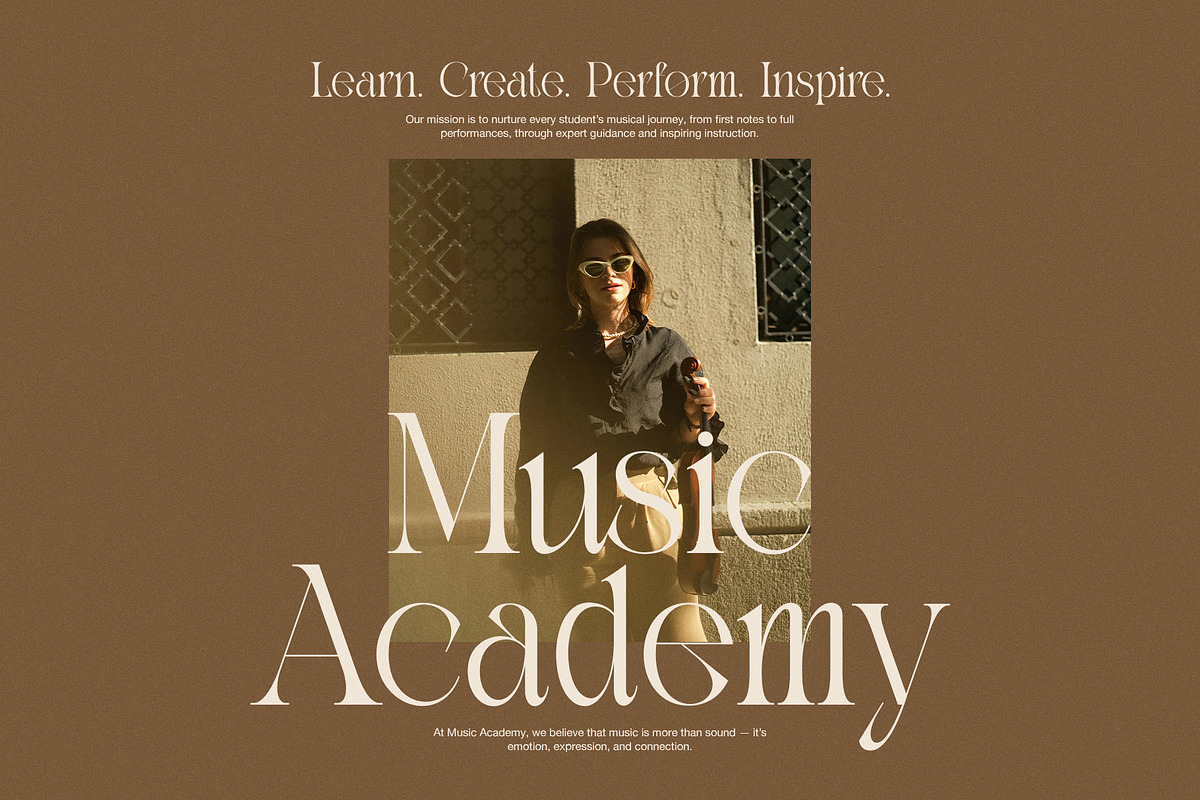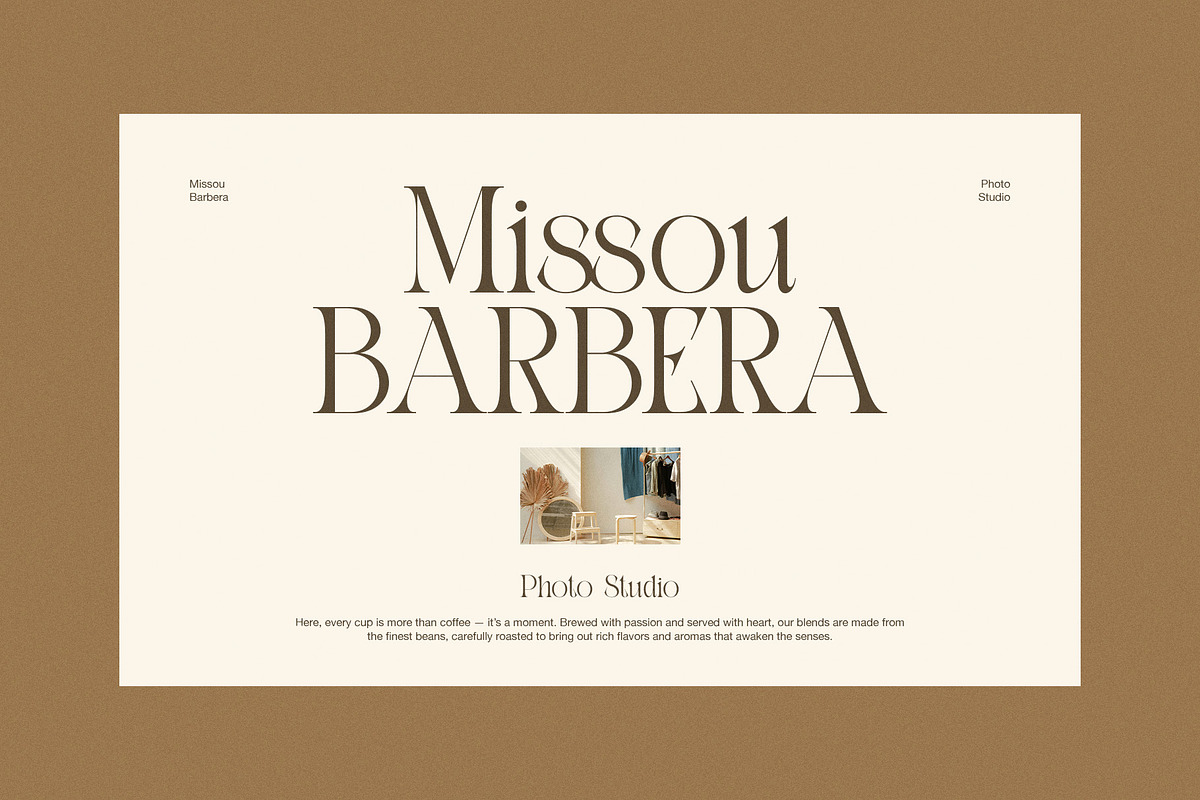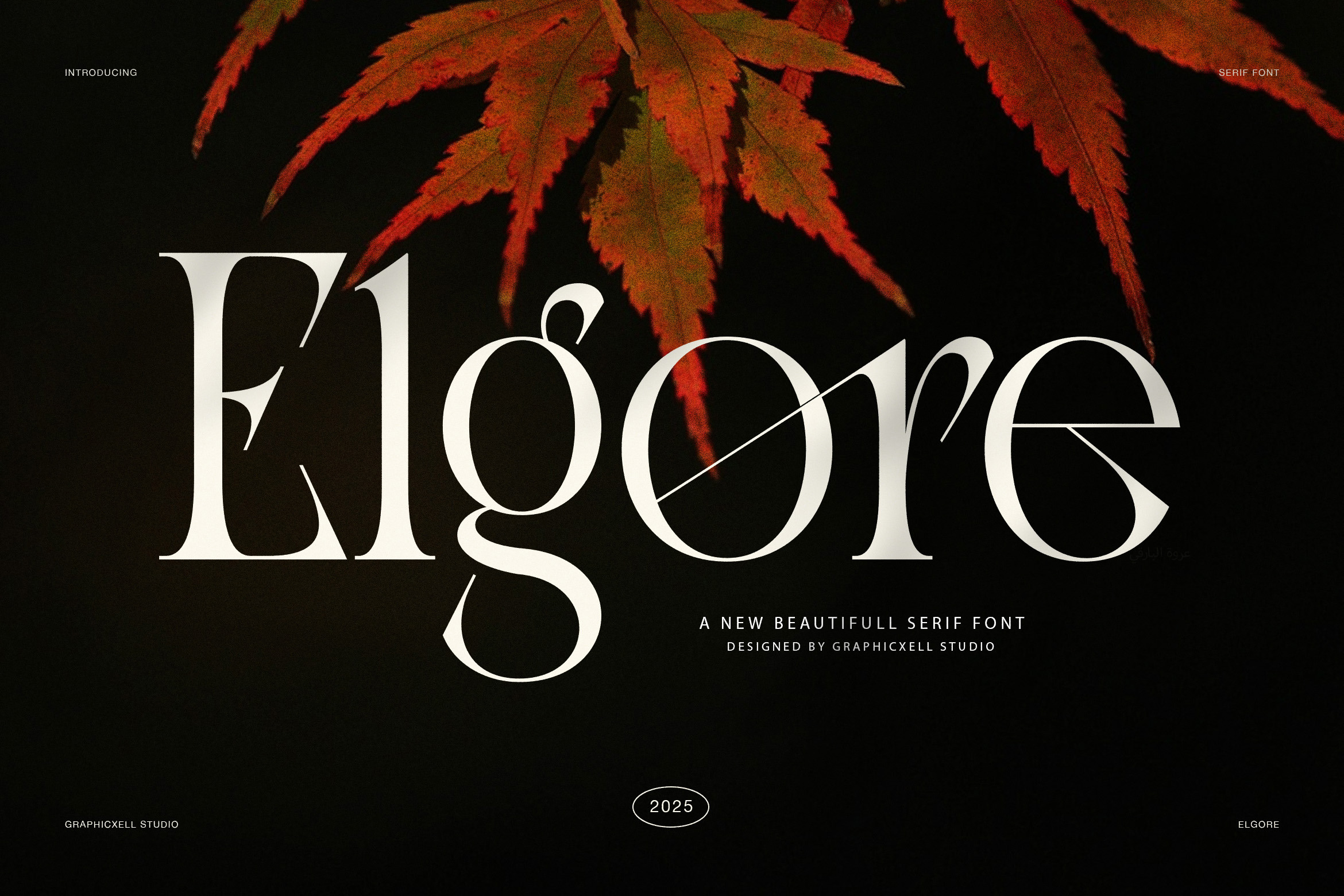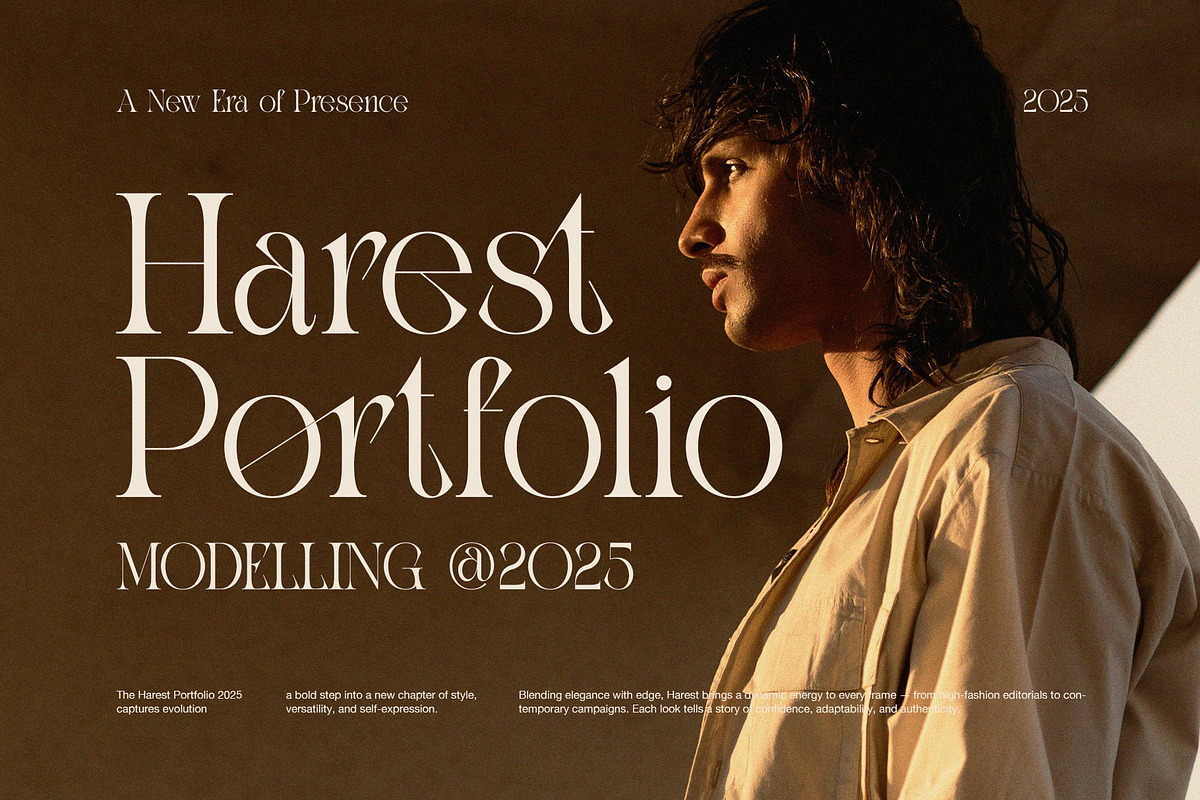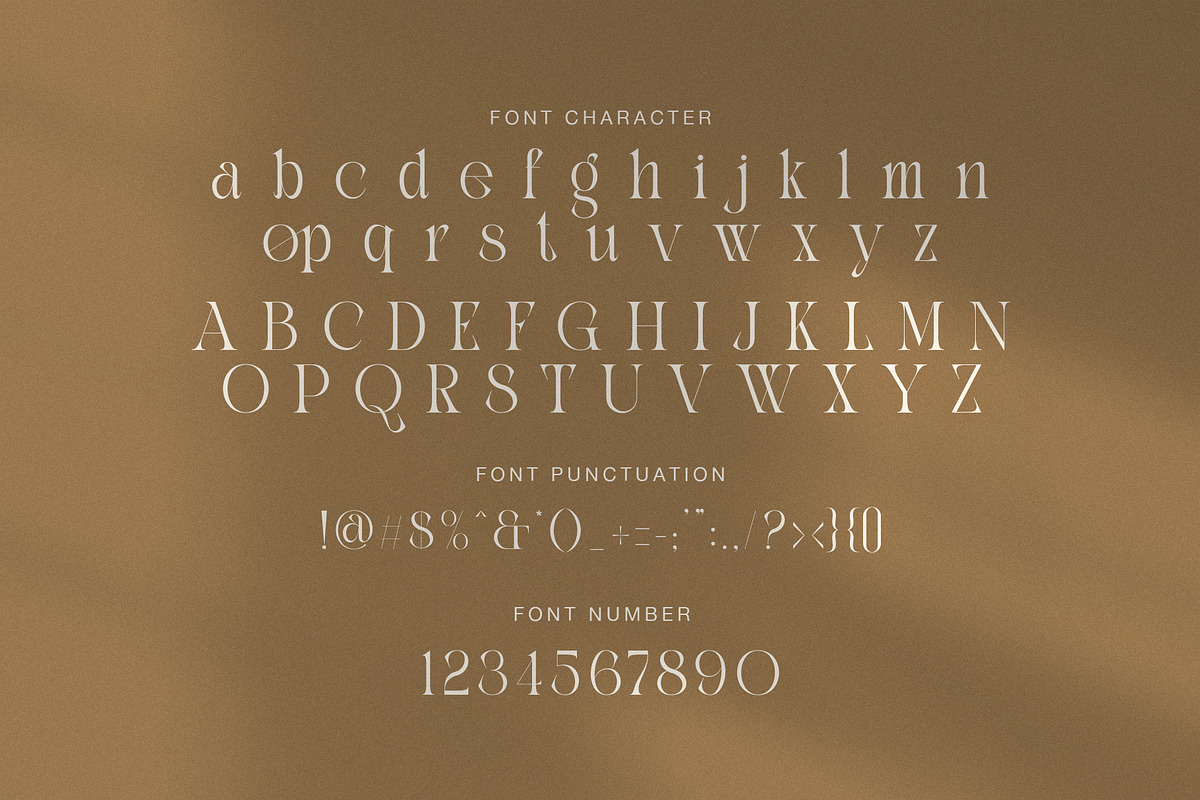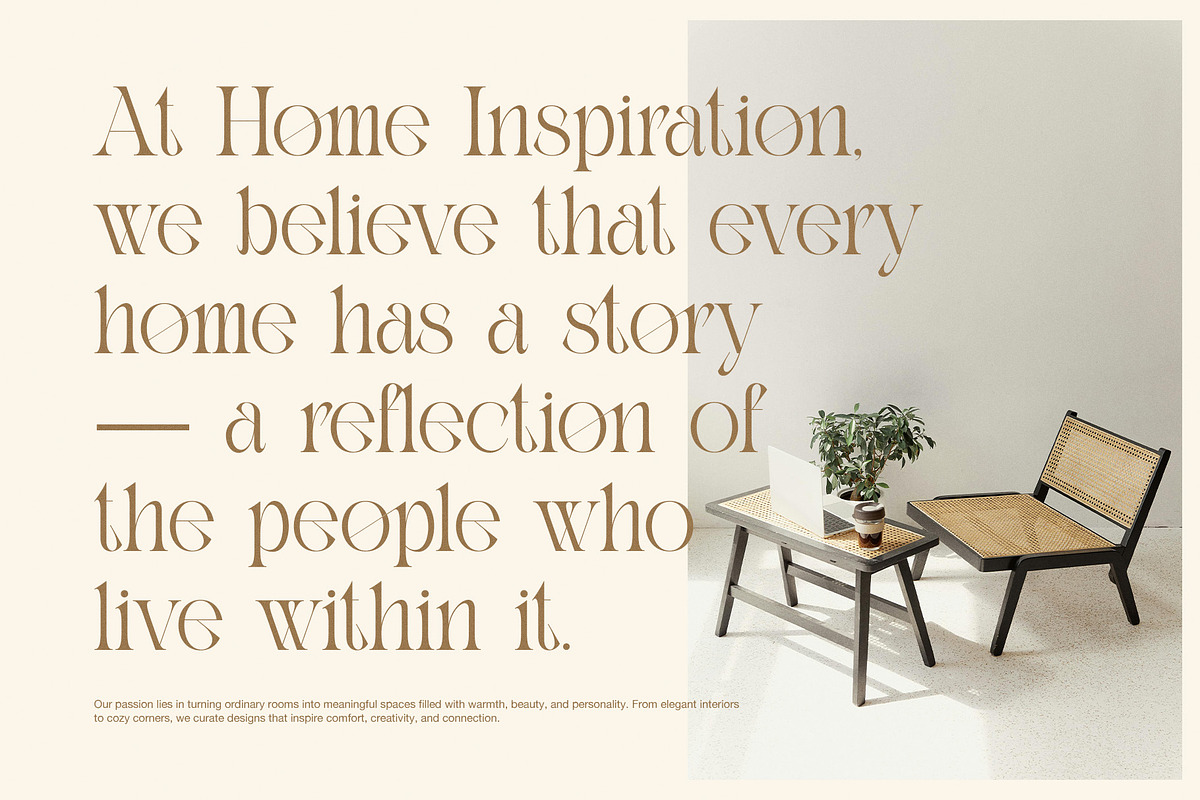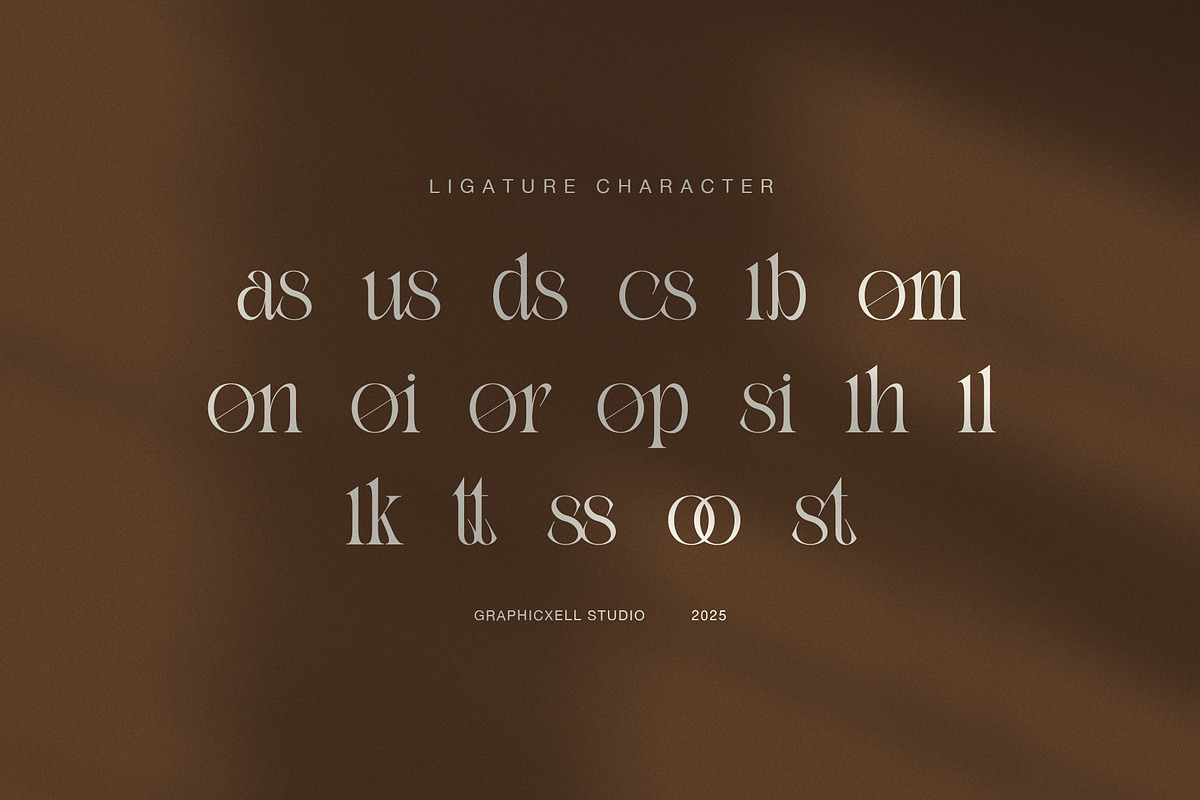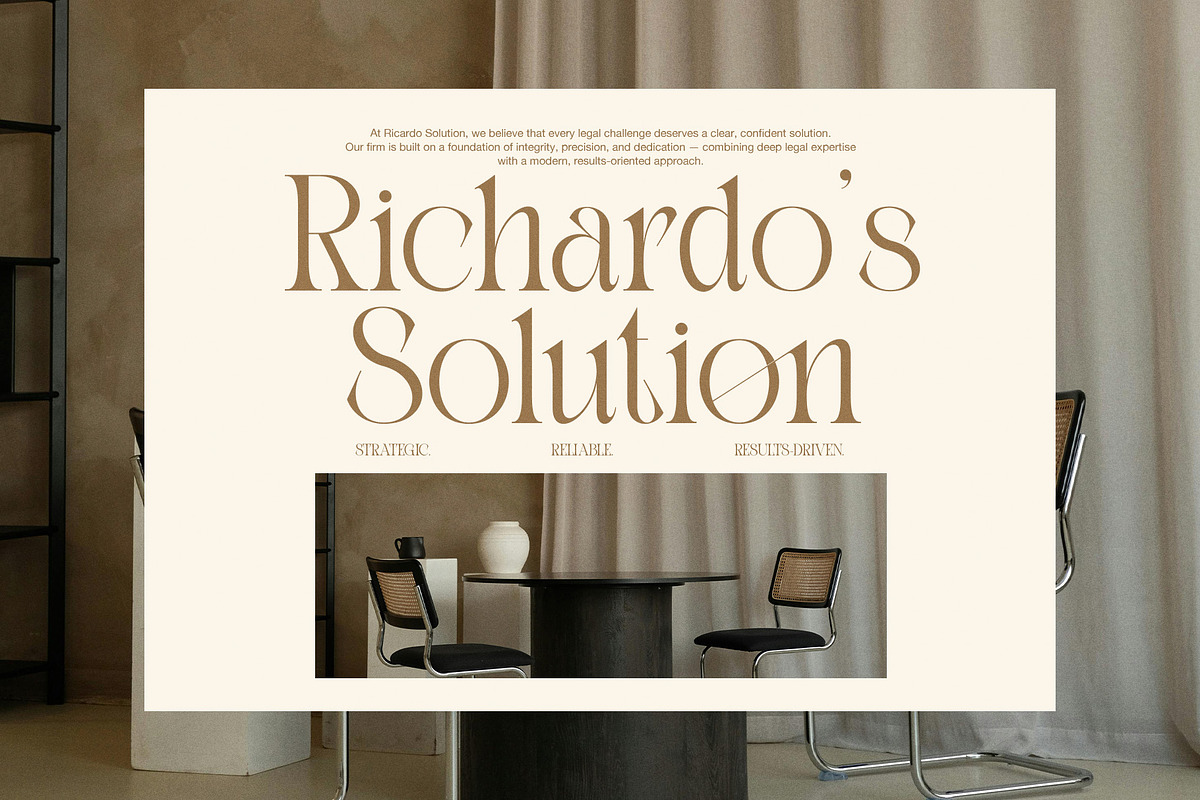
Elgore Elegant Modern Serif Font
Elgore is an elegant modern serif font created to deliver confidence, clarity, and timeless luxury. It features refined curves, sharp contrast, and expressive ligatures that elevate every composition. Because each letter feels intentional, Elgore creates impact while staying graceful.
This serif font blends classic editorial structure with modern fashion energy. As a result, designers rely on Elgore for magazines, modelling portfolios, and high-end branding. Moreover, its unique ligatures add personality without disrupting balance. Every character supports a clean and sophisticated visual rhythm.
Elgore works beautifully for designers who seek authority and elegance. Therefore, it suits fashion campaigns, interior studios, law firms, and lifestyle brands. In addition, it performs strongly in headlines, hero sections, and large display layouts where presence matters.
Why choose Elgore Serif Font?
Elegant serif style with modern editorial contrast
Distinctive ligatures for expressive typography
High readability for print and digital projects
Ideal for fashion, portfolio, and luxury branding
Timeless structure with contemporary strength
Furthermore, Elgore adapts smoothly across creative fields. Whether you design for modelling agencies, music academies, cafés, or premium services, this font adds confidence and refinement. Because spacing stays balanced, Elgore pairs perfectly with clean sans-serif fonts.
Elgore does more than present text. Instead, it shapes identity and mood. Each serif feels sharp, while every curve guides the eye naturally. Consequently, your designs appear bold, elegant, and memorable.
Ultimately, Elgore offers a modern serif solution for designers who value presence and sophistication. Use it to elevate branding, strengthen editorials, and communicate premium quality with clarity.